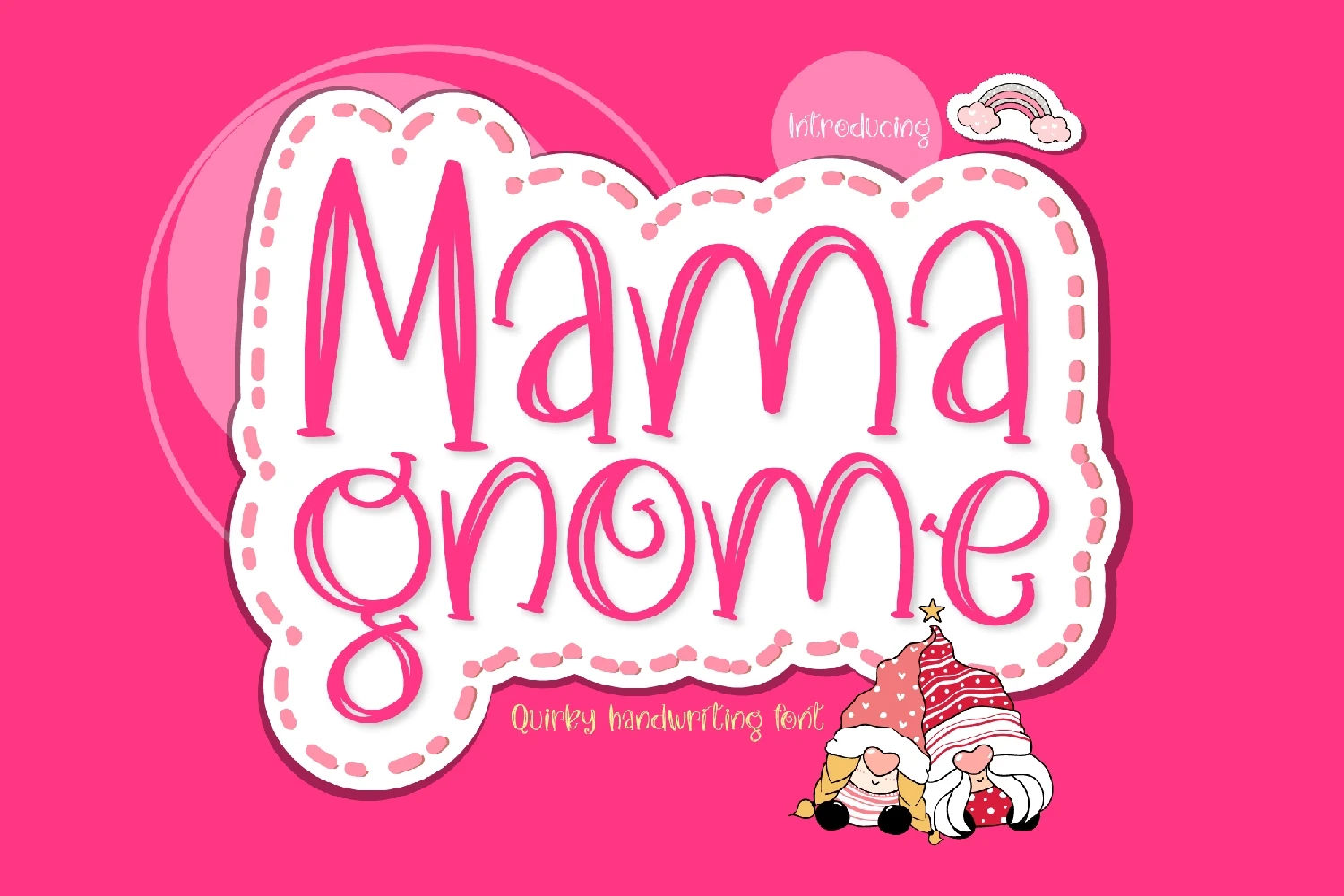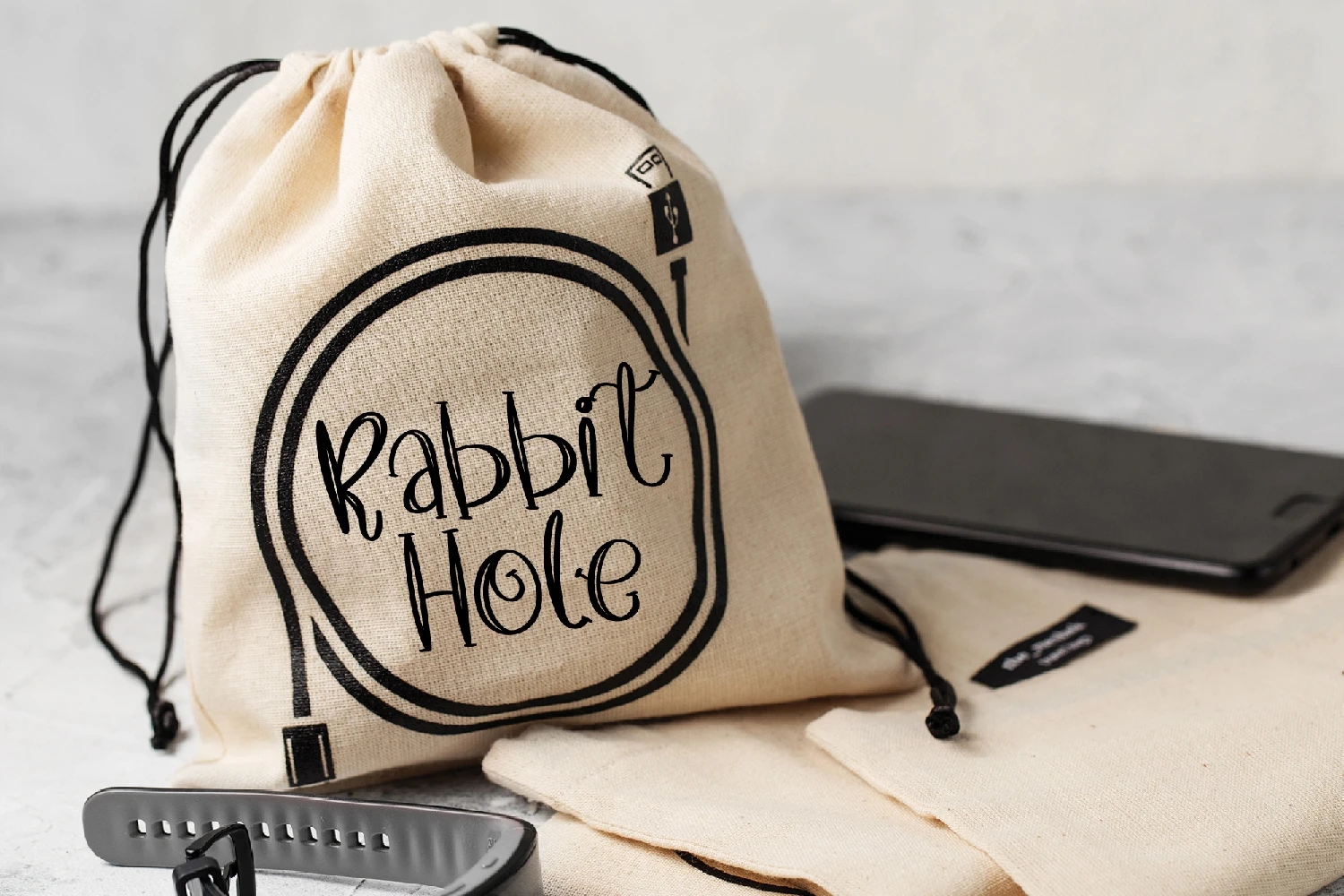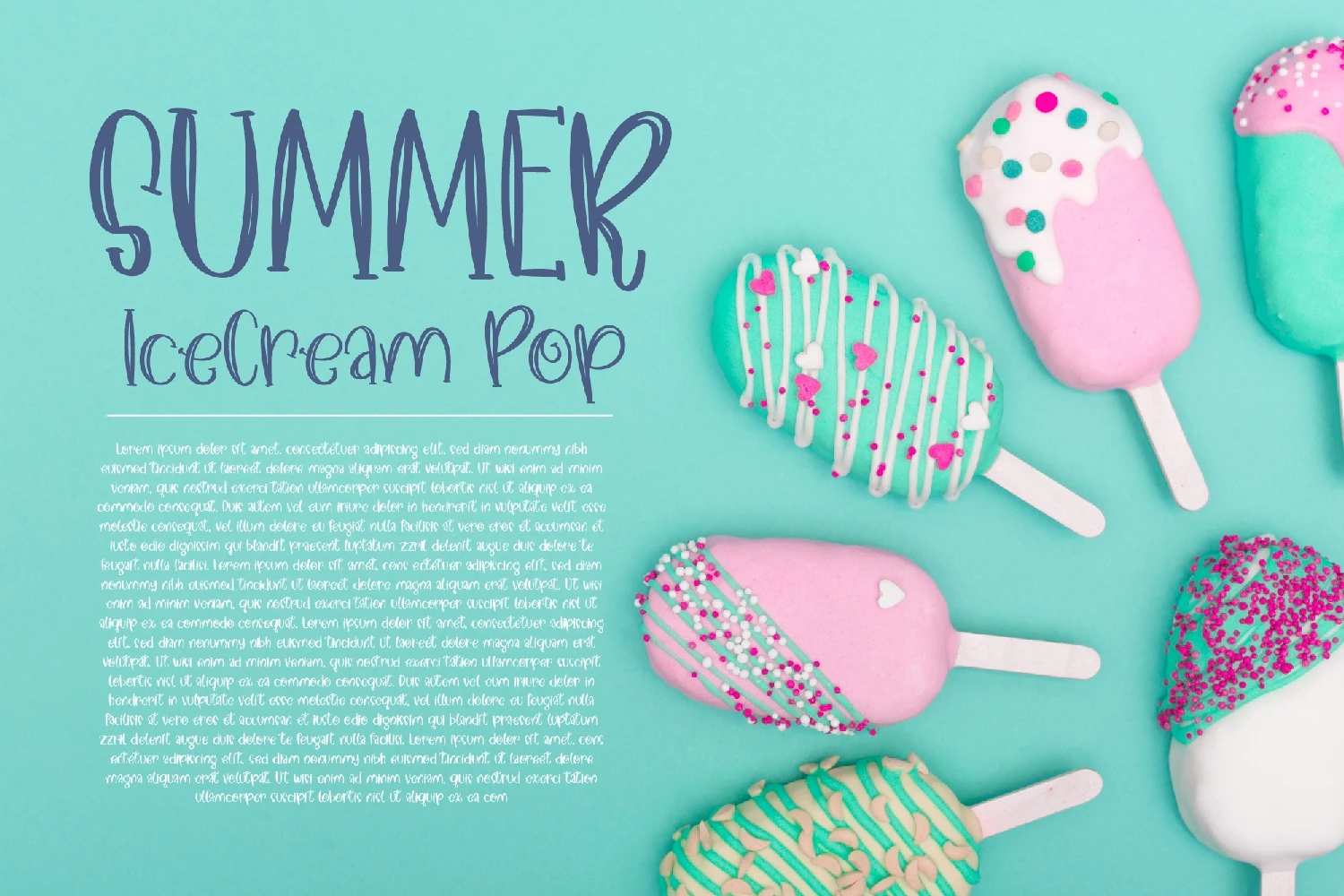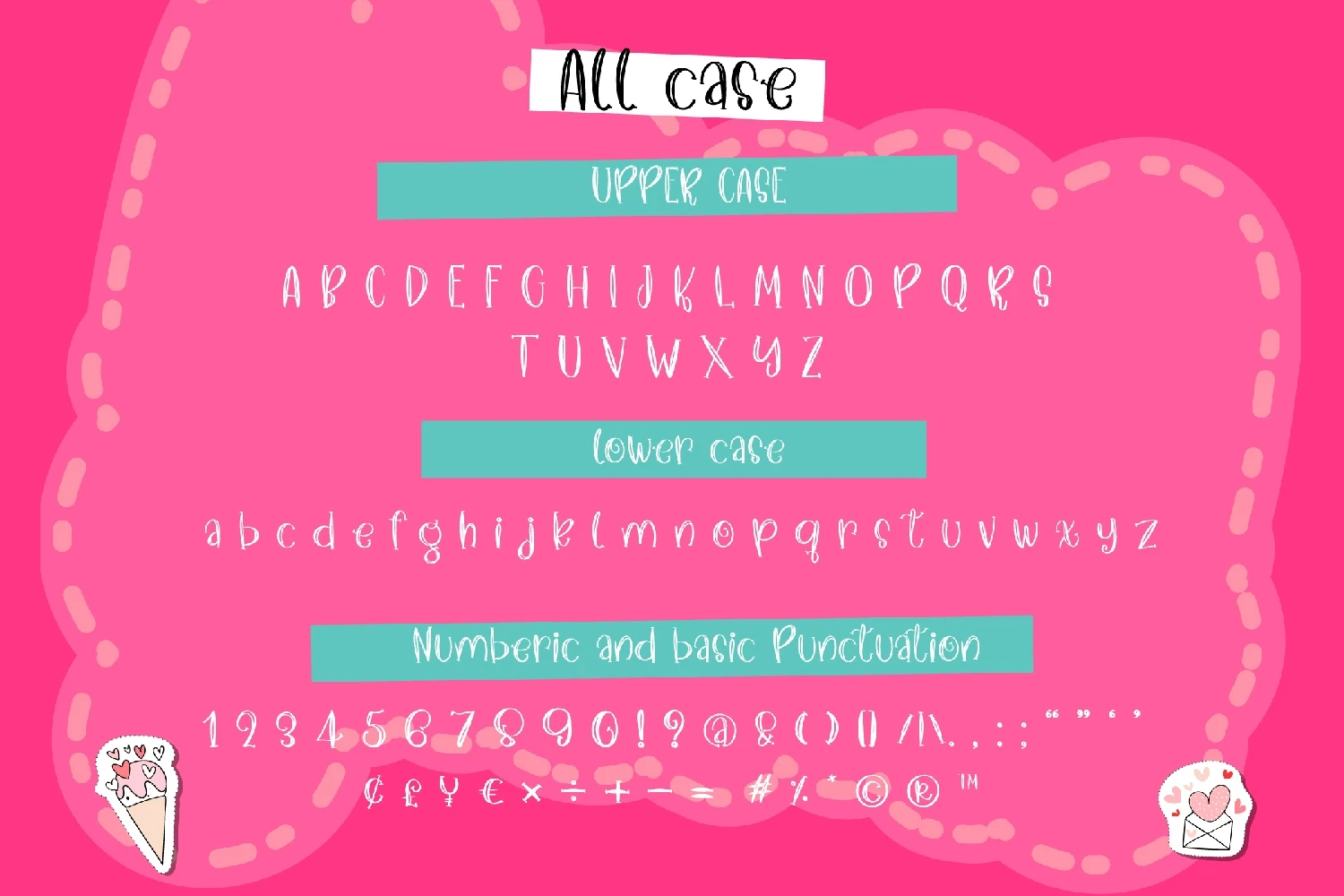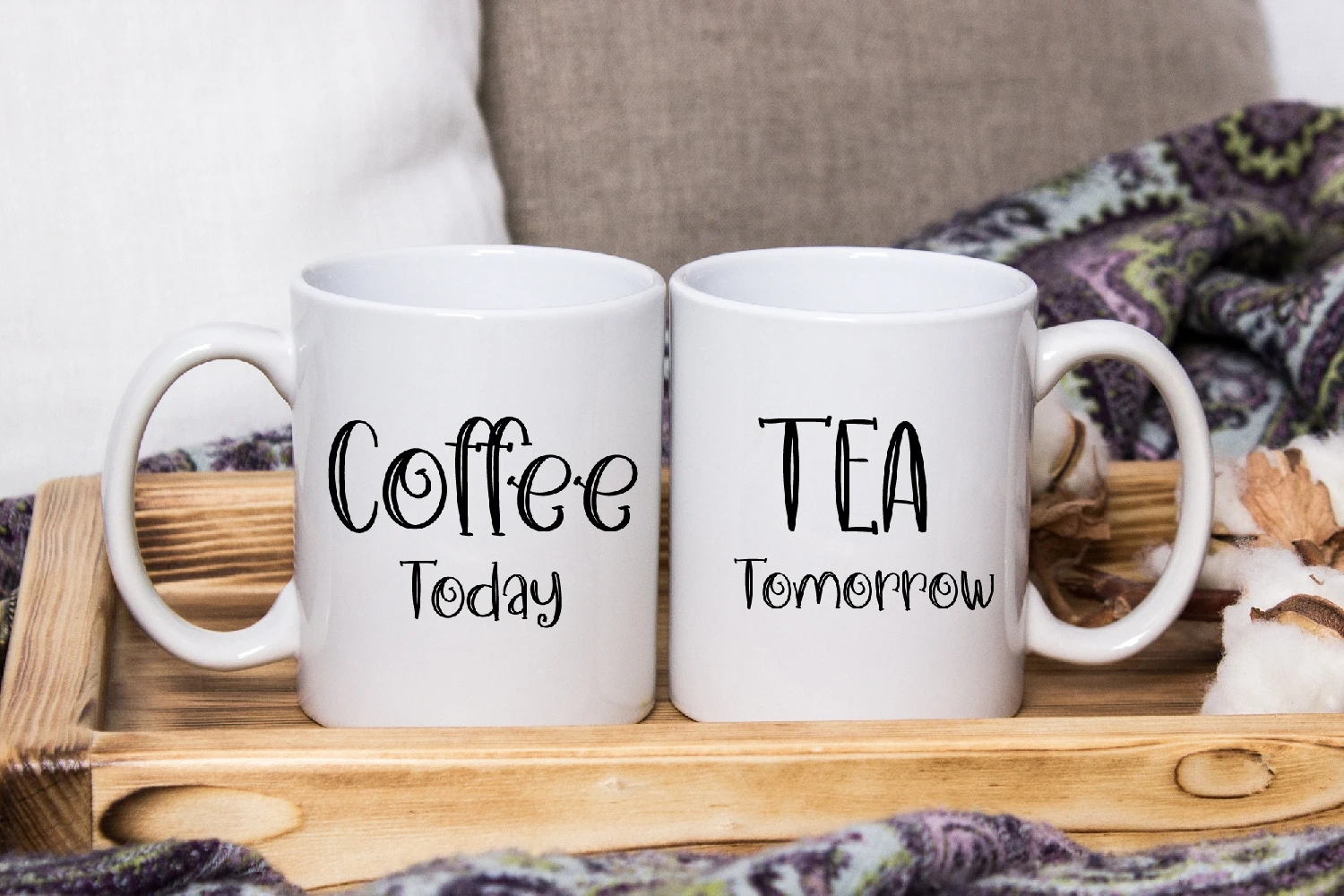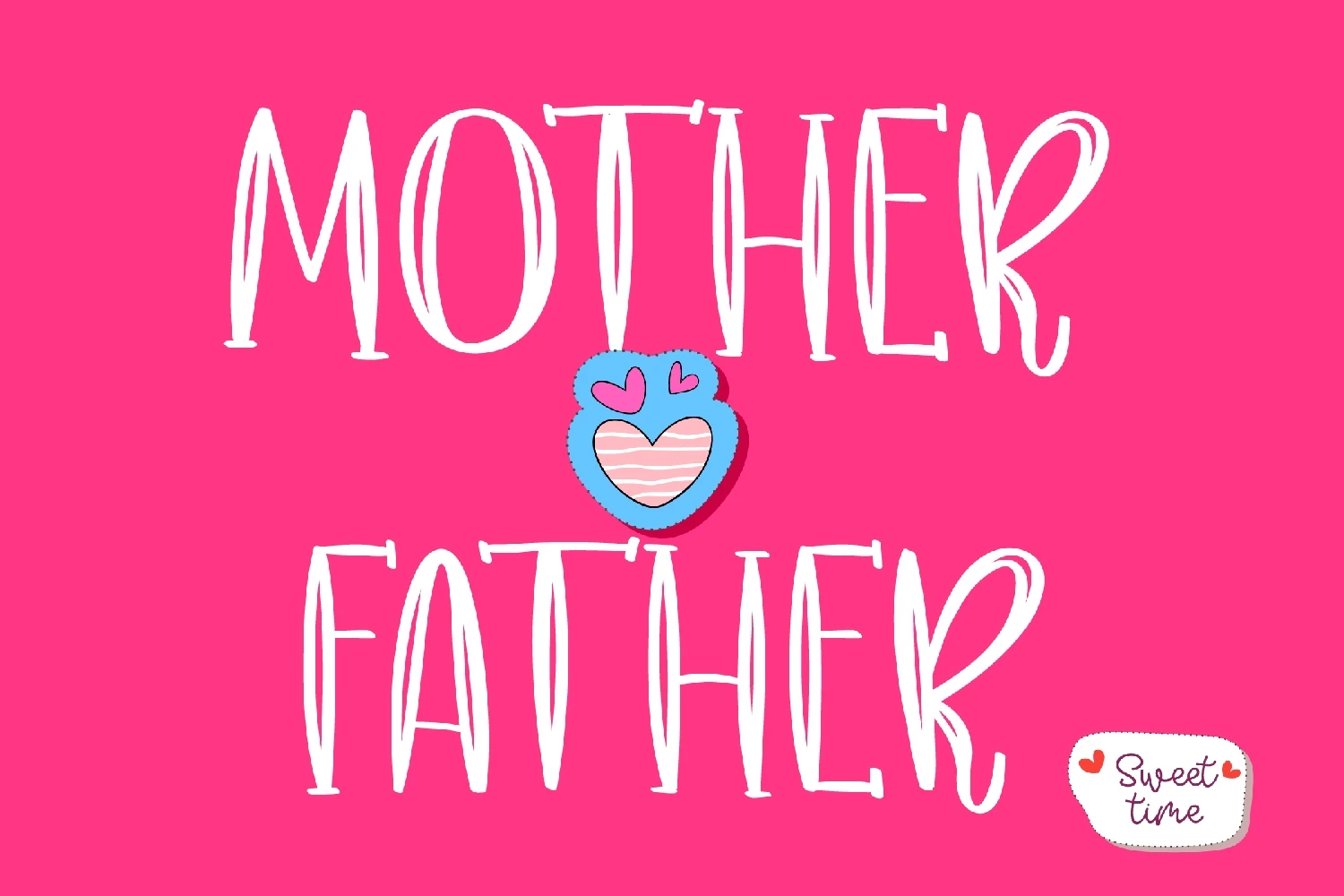
Mama Gnome is a playful and quirky display font. Whether you are using it for cartoon-related designs, childrens games, quotes, titles, brand names, book covers, posters, or just any creation that requires a touch of beauty, this font is a great choice.